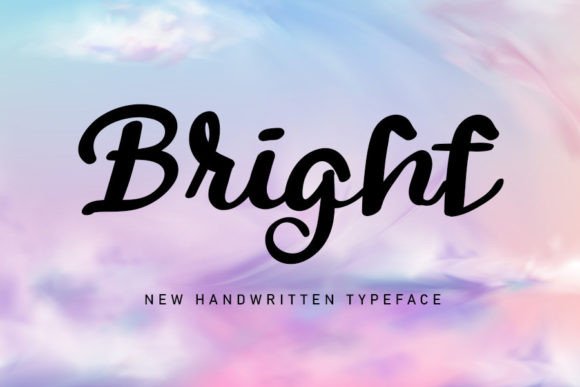
The Bright Font: A Game-Changer for Creative Designs
Have you ever been in the middle of a design project, and suddenly, you’re stuck on finding the perfect font? I recall a recent experience where I was working on a fun, crafty project for a client who wanted a playful and cheerful vibe. I scoured through my font library, but nothing seemed quite right – until I stumbled upon the Bright font. Its bold, chubby characters and lighthearted nature instantly won me over, and I knew I had found the perfect fit.
An Honest Review of Bright Font
What I Love About Bright Font ✨
- ✅ Fun and playful vibe: Bright font is perfect for designs that require a cheerful and upbeat tone.
- ✅ Highly legible: Despite its bold nature, the font remains easy to read, even in smaller sizes.
- ✅ Versatile: Bright font works well for a wide range of design projects, from crafty and DIY to modern and trendy.
- ✅ Unique character set: The font comes with a range of glyphs and stylistic alternates, making it easy to add personality to your designs.
- ⚠️ Limited use in formal designs: Bright font’s playful nature makes it less suitable for formal or professional designs.
- ⚠️ May not work well in small sizes: While the font is legible, it may lose some of its charm when used in very small sizes.
The Story Behind Bright Font
Bright font was designed with the intention of creating a fun and playful typeface that would bring joy to designers and their projects. The designer, inspired by childhood memories of colorful crayons and playful stationery, aimed to create a font that would evoke a sense of happiness and creativity. With its bold and chubby characters, Bright font is sure to add a touch of whimsy to any design.
Q: What type of designs is Bright font best suited for?
A: Bright font is perfect for designs that require a playful and cheerful vibe, such as crafty and DIY projects, modern and trendy designs, and creative hobbies.
Q: Does Bright font come with OpenType features?
A: Yes, Bright font comes with a range of OpenType features, including glyphs and stylistic alternates, which can be accessed in compatible design software.